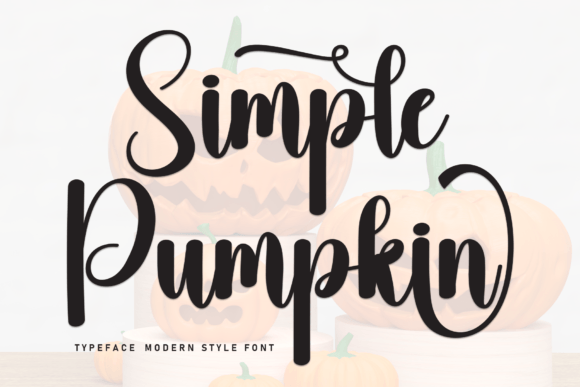
Unleash the Magic of Simple Pumpkin Font: Your Gateway to Timeless Elegance and Unforgettable Designs
In a world of digital monotony, where fonts often blend into the background, Simple Pumpkin Font emerges as a breath of fresh air, a stunning script font that captivates hearts and transforms designs into timeless masterpieces. Its elegant curves, playful swashes, and unique character lend an air of sophistication and charm to any project, making it the perfect choice for those seeking to make a lasting impression.
Step into a world of creativity and let Simple Pumpkin Font ignite your imagination. With its versatility, it effortlessly adapts to a myriad of design styles, from whimsical and playful to classic and refined. Whether you're crafting eye-catching logos, unforgettable branding, or heartfelt quotes, this font is your perfect companion, adding a touch of magic and personality to every letter.
Experience the Beauty of Handwritten Charm:
Simple Pumpkin Font is a labor of love, meticulously crafted by Roronoa Zoro.S.P.D, a renowned font designer with a passion for creating fonts that inspire and captivate. Each letter is a testament to their dedication, imbued with a unique and beautiful touch that brings your designs to life. The result is a font that exudes warmth, authenticity, and a touch of nostalgia.
Unleash Your Creativity with Endless Possibilities:
With Simple Pumpkin Font, the possibilities are limitless. Its versatility knows no bounds, making it the ideal choice for a wide range of design projects. Whether you're a seasoned designer or just starting out, this font will empower you to create designs that resonate with your audience and leave a lasting impact. Unleash your creativity and let Simple Pumpkin Font guide you on a journey of artistic exploration.
Discover the Perfect Font for Cursive Writing:
For those seeking the perfect cursive font, Simple Pumpkin Font stands tall. Its flowing lines, graceful curves, and enchanting swashes make it a joy to write with. Whether you're crafting personalized invitations, heartfelt letters, or stunning calligraphy, this font adds a touch of elegance and sophistication that will leave your readers spellbound.
Embrace the Timeless Beauty of Simple Pumpkin Font Today: